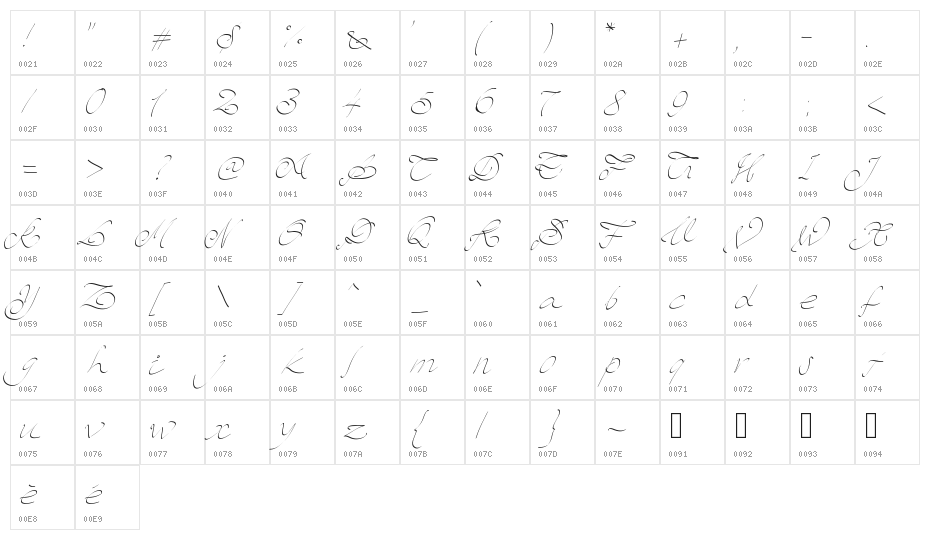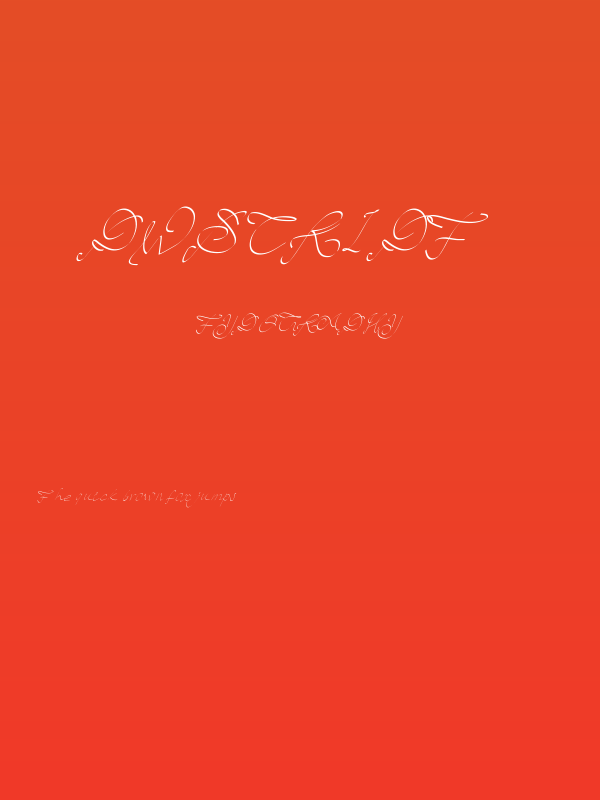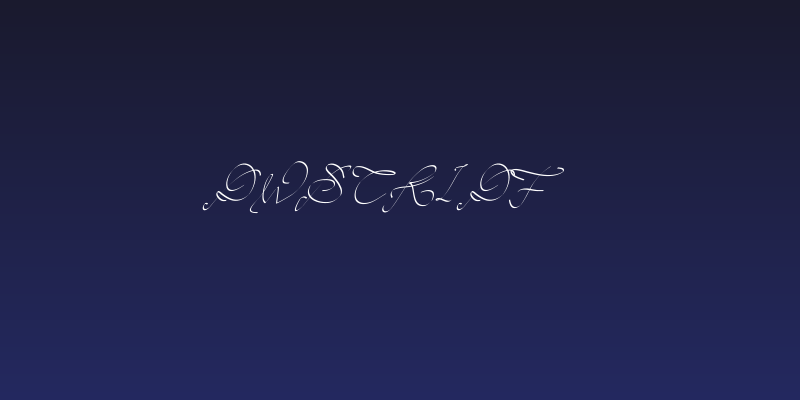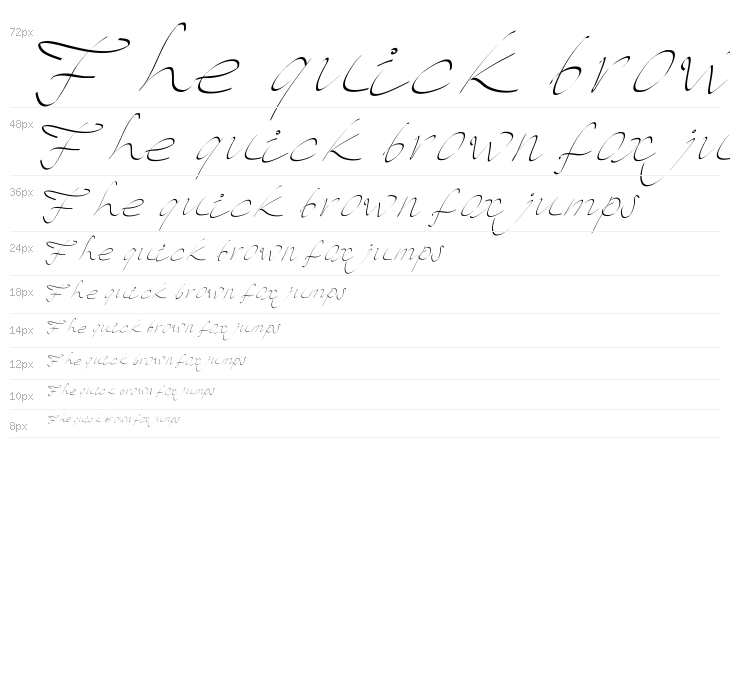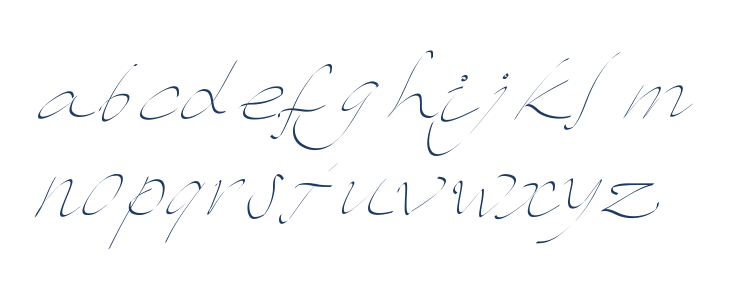
PWScript Font
PWScript Description
This elegant script font features flowing, cursive letterforms with intricate swashes and flourishes, giving it a sophisticated and artistic appearance. The characters are connected in a fluid manner, reminiscent of traditional calligraphy, yet with a modern twist. The uppercase letters are particularly ornate, with extended strokes and loops that add a touch of drama and flair. The lowercase letters maintain a consistent style, ensuring readability while still embodying the font's decorative nature. The numerals and special characters are designed to match the overall aesthetic, making this font suitable for a variety of creative applications.
| Use Case | Logos, Invitations, Decorative text |
| Proposed Projects | Ideal for wedding invitations, greeting cards, branding, and elegant logo designs. |